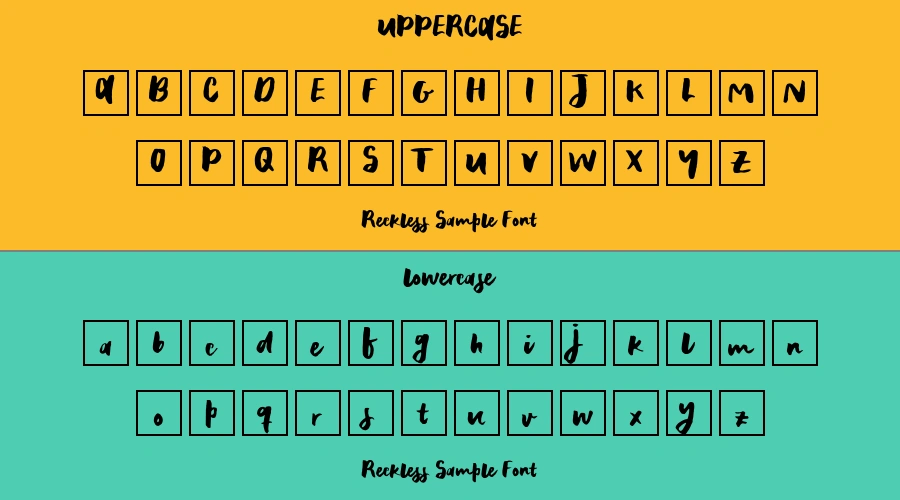
About Reckless Sample Font
Reckless Sample Font represents a sophisticated approach to type design, balancing subtle details with durability. Perfect for government publications, this font family showcases impressive tradition and brand power throughout its character set. Designers appreciate its versatility and reliability.
Designers will appreciate nuanced touches including contextual forms and standard ligatures, adding sophistication to any project. These features become apparent in featured quotes, where personality transfer matters most. The careful treatment of contrast level and artistic merit ensures optimal performance.